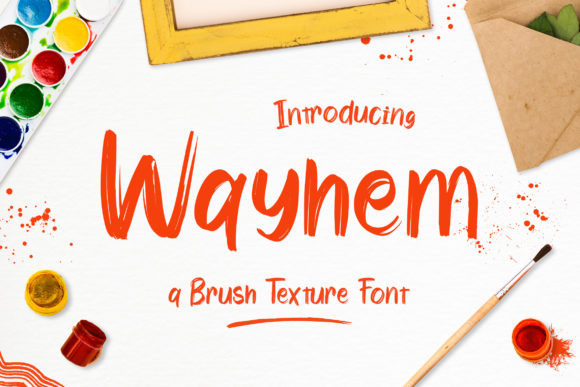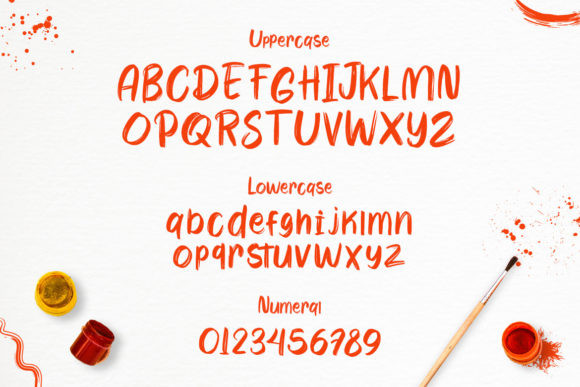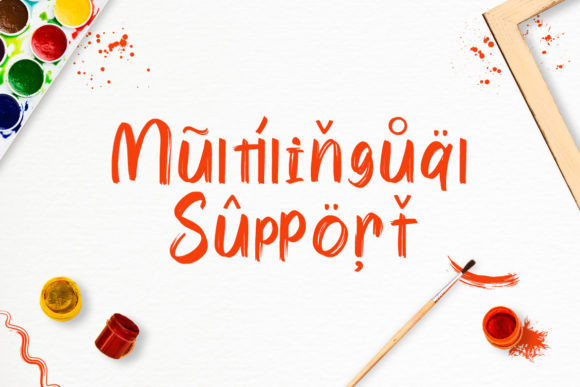
Wayhem Font
Wayhem is a textured brushed handwritten font. This font reads as strong, confident, and dynamic and can add tons of trendy character to your designs.